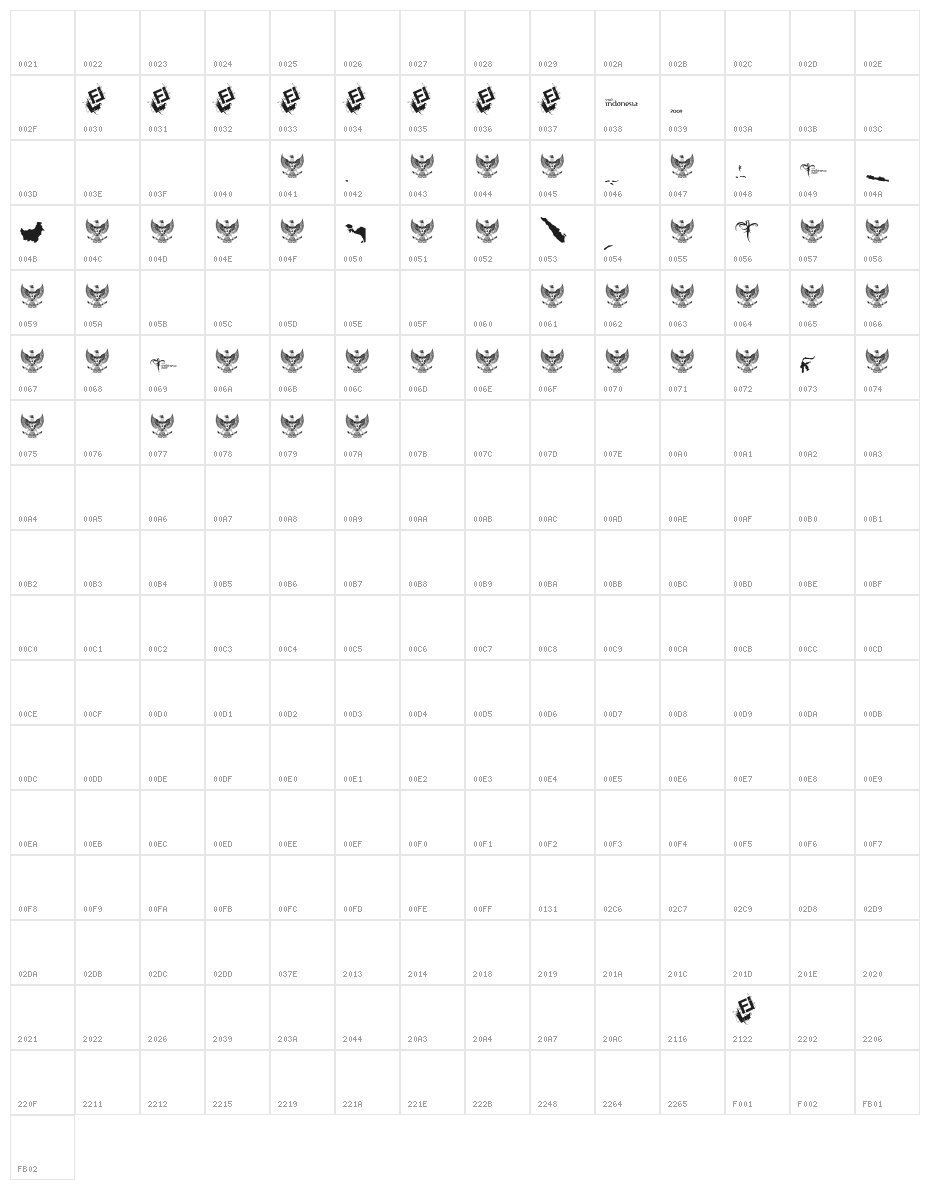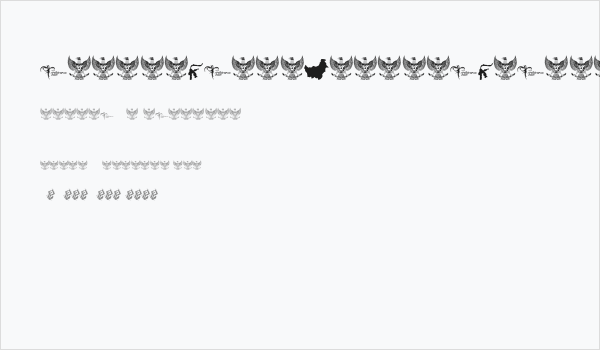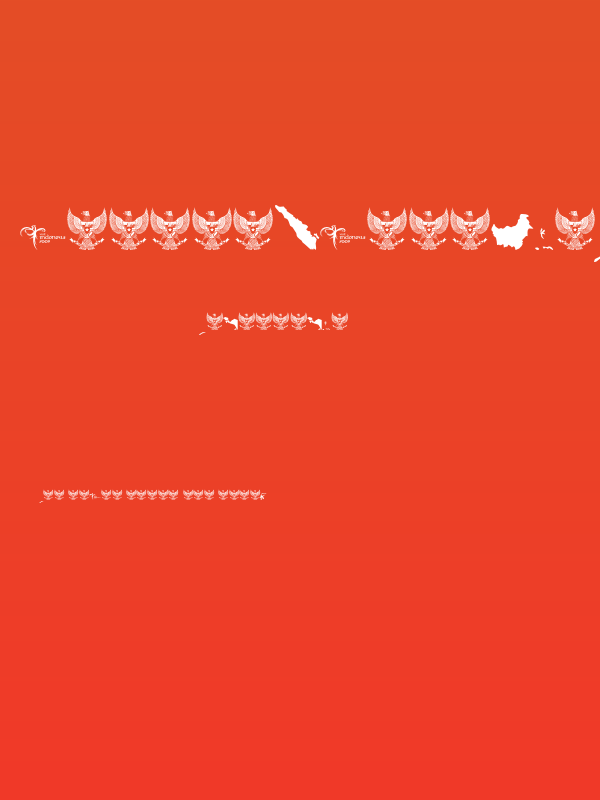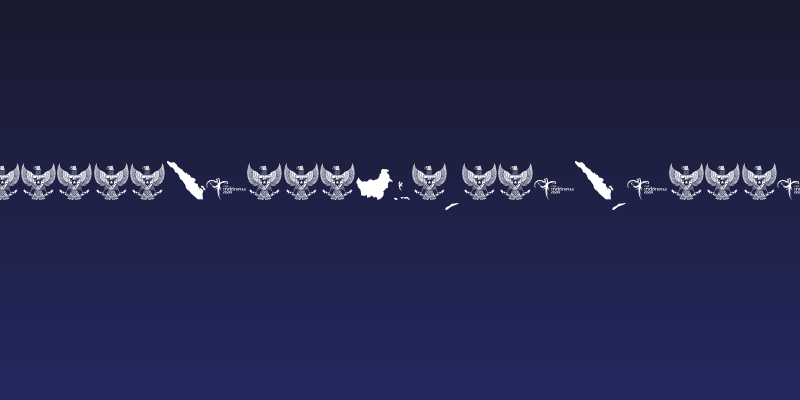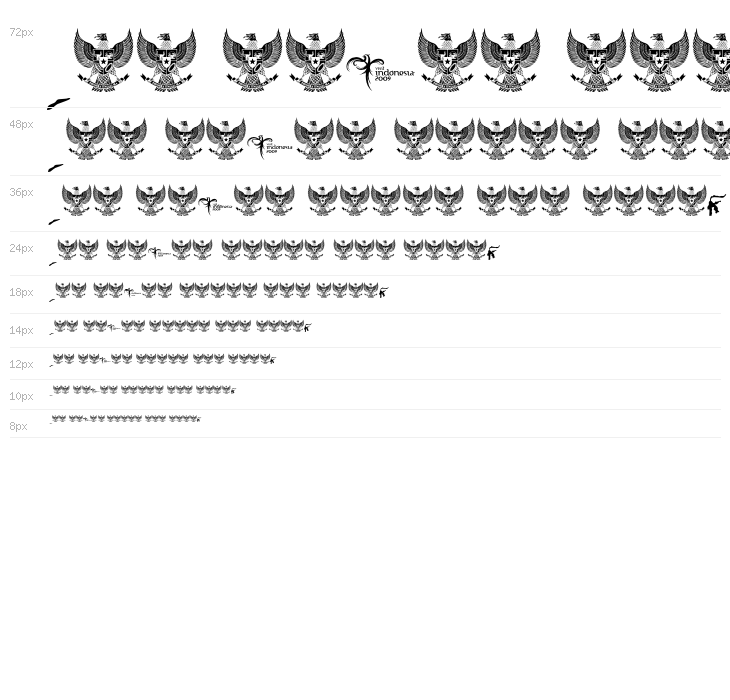
IndonesianaKhatulistiwania Font
IndonesianaKhatulistiwania Description
A highly decorative and thematic font featuring Indonesian national symbols, maps, and cultural motifs integrated into the letterforms. Many glyphs are replaced with images such as the Garuda Pancasila, Indonesian islands, and ornamental flourishes, making it more of a symbolic or pictorial font than a traditional text font.
Overall StyleDecorative, Thematic, Nationalistic
Use CaseLogos, Posters, Themed Headlines
Proposed ProjectsTourism posters, cultural event branding, themed graphics, educational materials about Indonesia.